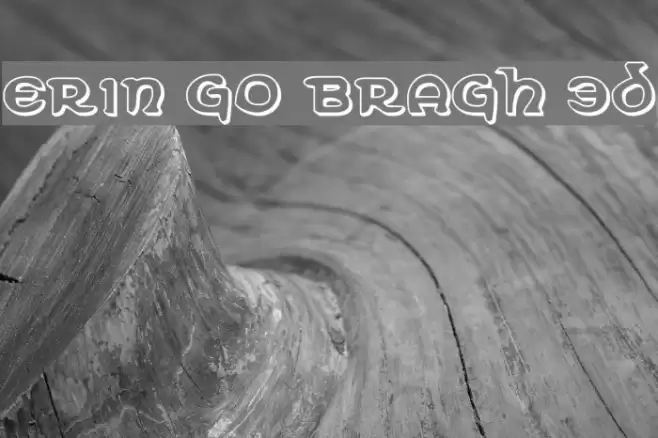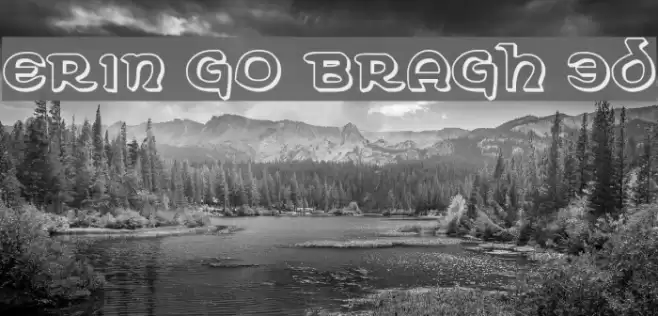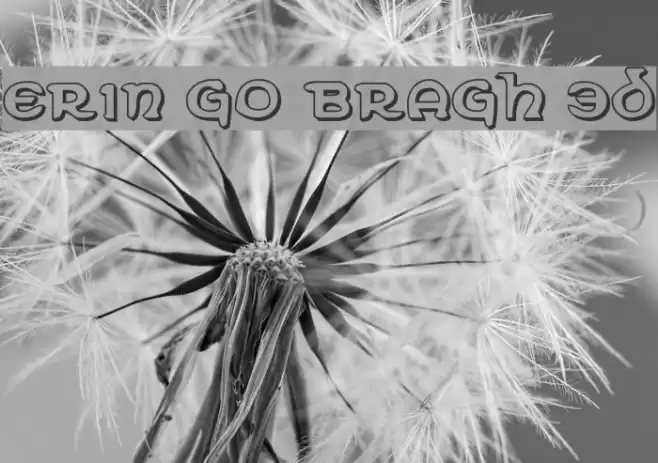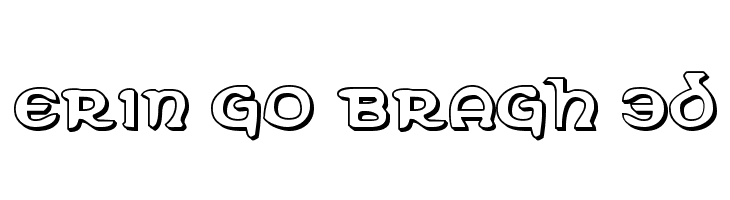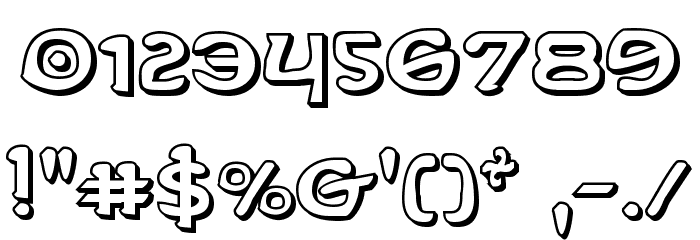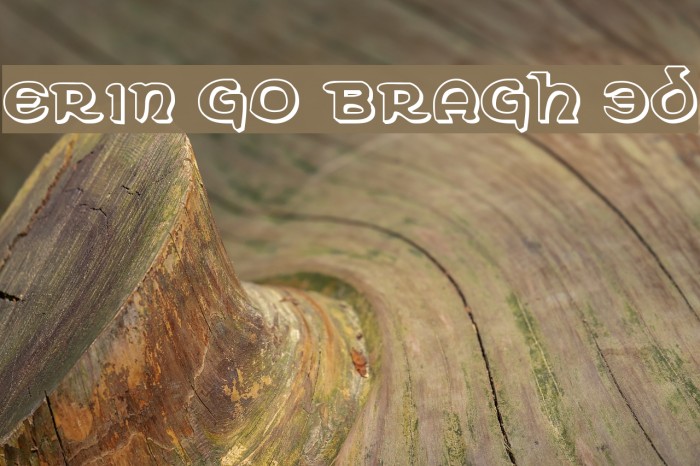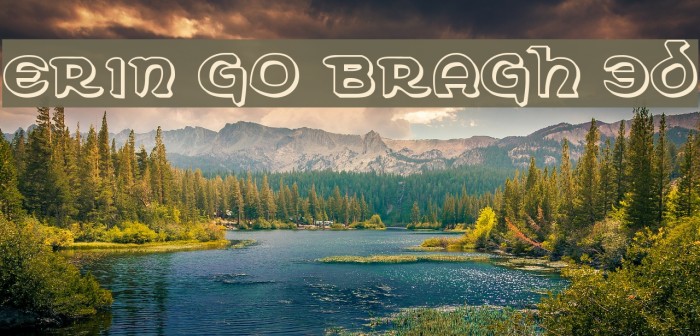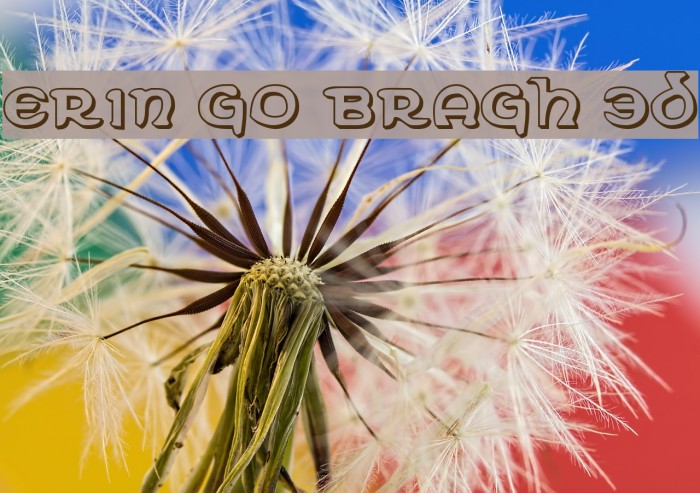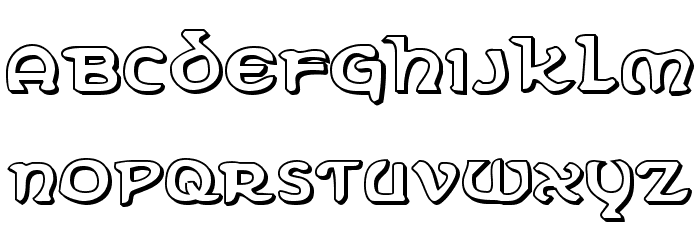
Erin Go Bragh 3D Font
Erin Go Bragh 3D Description
This font features a bold, three-dimensional style with a playful and decorative appearance. The characters have a unique outline that gives them a shadow effect, creating a sense of depth. The letterforms are rounded and slightly condensed, with a whimsical flair that makes them stand out. The font includes both uppercase and lowercase letters, numerals, and a variety of special characters. Its distinct style is reminiscent of retro or vintage designs, making it suitable for projects that require a fun and eye-catching typeface.
A bold, 3D decorative font with a playful, retro style from Gothic fonts.
- Proposed Projects: Ideal for posters, logos, children's books, and any design needing a playful, eye-catching typeface.